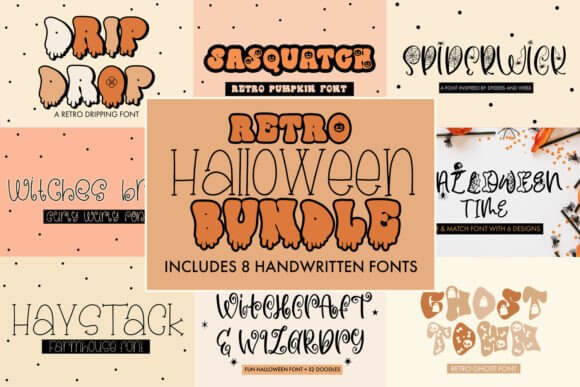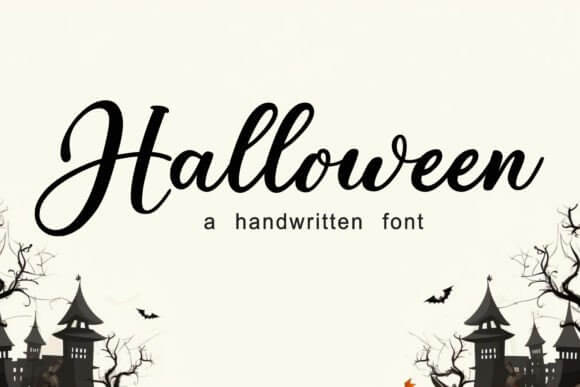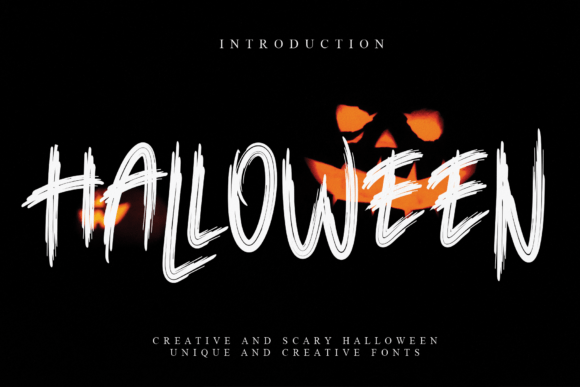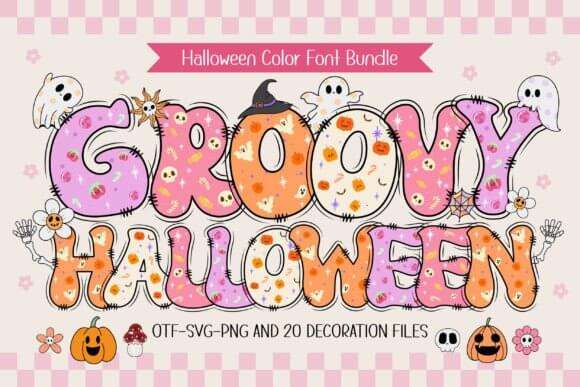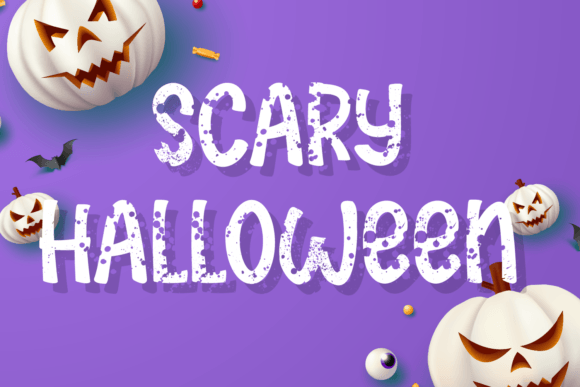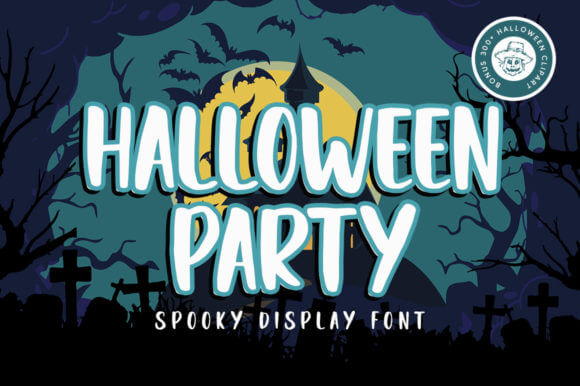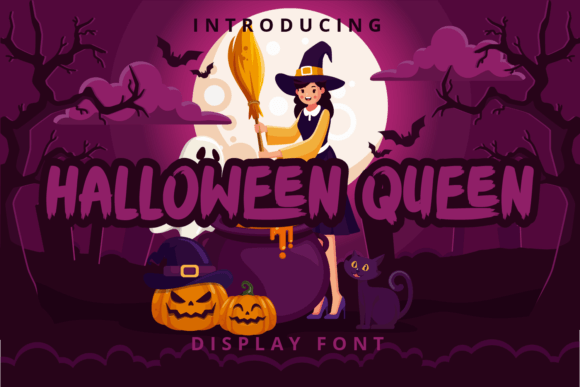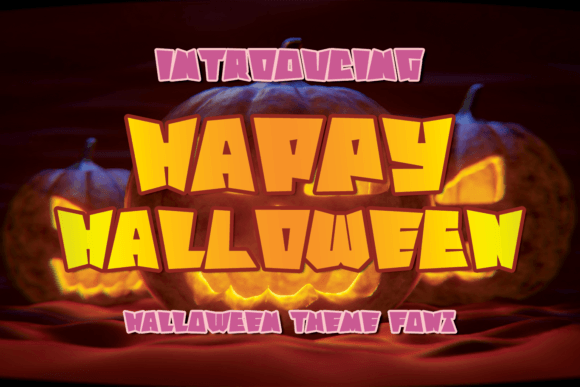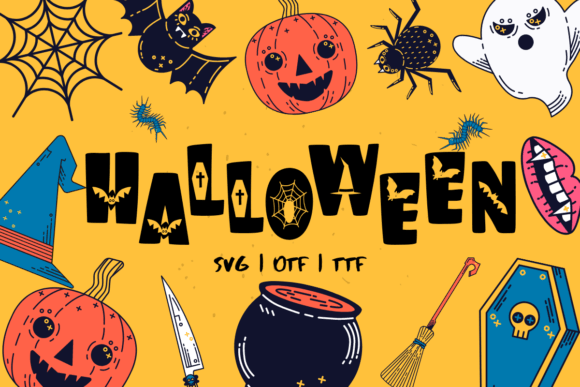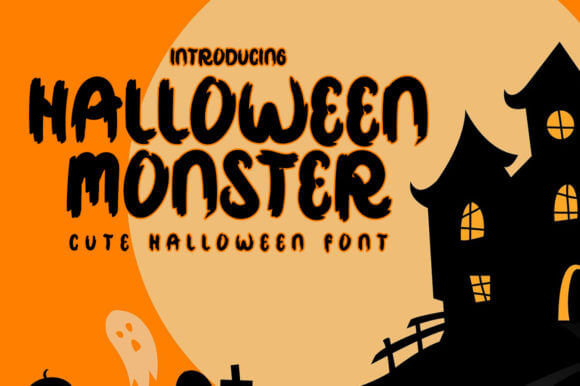
Picking halloween fonts sounds easy until every design starts looking like the same tired fake-blood headline. Most people judge a title in a couple of seconds, maybe less, so the shape of your letters does the heavy lifting before your message even wakes up. We pulled together 18 styles that cover retro halloween fonts, creepy lettering, cute party scripts, pixel horror vibes, and clean display options for signs, invites, merch, labels, and poster work.
Some of these sets lean loud and campy. Some feel dark, witchy, or oddly sweet. If you need halloween fonts alphabet ideas, easy title art, or halloween fonts free enough to test on shirts, stickers, classroom printables, and seasonal branding, this lineup saves time and cuts the guesswork. We think good typography should hit fast, read clean, and make people stop scrolling. Simple.
Retro Halloween Bundle For Vintage Title Design
Retro Halloween Bundle leans into curves, candy shades, and old-school October energy. If a brand wants retro halloween fonts for tees, sticker sheets, bakery promos, or a loud sale graphic, this bundle lands fast and keeps the mood fun instead of fake scary. We reach for it when a project needs nostalgia more than menace.
Where This Bundle Works Best
- Shirt Collections – Loud seasonal merch.
- Sale Headers – October promos with nostalgia.
- Treat Packaging – Candy bags and label wraps.
- Sticker Bundles – Cute spooky extras.
Halloween Font For Spooky Display Headlines
Halloween Font goes straight for the classic spooky read, but it does not turn into mush at smaller sizes. That makes it a handy spooky display lettering choice for flyers, headers, coupon art, and quick promos when you want fear vibes without sacrificing legibility. Honestly, clean fear wins.
Best Uses For This Spooky Pick
- Event Flyers – Big readable seasonal titles.
- Web Banners – Fast impact on offers.
- Coupon Covers – Sharp holiday callouts.
- Menu Boards – Café specials with bite.
Halloween For Playful Creepy Projects
Halloween keeps a playful edge, so it fits projects that need creepy flavor without full horror theatrics. We like it for halloween alphabet letters on classroom decor, treat labels, pumpkin signs, and DIY name art because the shapes feel easy to trace, easy to cut, easy to love. Sometimes simple just works.
Projects That Fit This Style
- Classroom Labels – Friendly seasonal decor.
- Pumpkin Place Cards – Cute table styling.
- Scrapbook Titles – Easy handmade charm.
- DIY Name Signs – Fast craft lettering.
Groovy Halloween Font With Retro Pumpkin Energy
Groovy Halloween swerves away from cliché and leans into swirly, feel-good chaos. For makers hunting quirky halloween fonts with 70s bounce, this one punches up tote bags, mug decals, greeting cards, and photo booth signs with a warm weirdness that feels trendy, not forced. It has attitude. Good kind.
Nice Spots For This Groovy Look
- Tote Graphics – Trendy seasonal merch.
- Retro Invite Cards – Fun party tone.
- Photo Booth Props – Playful event extras.
- Candle Stickers – Cute shelf-ready labels.
Scary Halloween Font For Sharp Horror Posters
Scary Halloween brings sharp edges and proper horror energy, so use it big and let it bite. This is strong horror poster typography for haunted house ads, escape room art, video thumbnails, or dark event headers where softness would kill the whole mood. It wants space, contrast, and nerve.
Where The Sharp Edge Lands
- Haunted Posters – High-drama headlines.
- Escape Room Ads – Intense promo art.
- Video Thumbnails – Fast fear on screen.
- Costume Contest Titles – Loud stage text.
Halloween Party Font For Invites And Decor
Halloween Party feels friendlier than the name suggests, which helps when you design for kids, families, or mixed-age events. As a party invitation font, it handles invites, cupcake toppers, welcome boards, and party packs with enough seasonal charm to feel festive without going full monster movie.
Best Places To Drop This Font
- Birthday Invites – Clean and cheerful.
- Dessert Toppers – Sweet themed details.
- Entry Signs – Warm event welcome.
- Activity Sheets – Friendly kid appeal.
Halloween Queen Font For Witchy Branding Looks
Halloween Queen looks flirty, witchy, and a bit glam. We like that tension. If you run a boutique shop or create event goods, this witchy brand lettering style gives shirts, candles, beauty promos, and spooky self-care packaging a cleaner voice than the usual jagged stuff. Strong feminine vibe.
Who Should Grab This One
- Boutique Tees – Stylish October drops.
- Candle Branding – Soft dark packaging.
- Salon Promos – Witchy beauty campaigns.
- Gift Box Sleeves – Elevated seasonal wraps.
Happy Halloween Font For Cute Seasonal Crafts
Happy Halloween goes cute first and scary never, which honestly solves a lot of design problems. Use this cute halloween script on treat bags, teacher printables, kids tees, or sticker sheets when you want October charm, readable words, and none of the nightmare fuel. Soft sells, FYI.